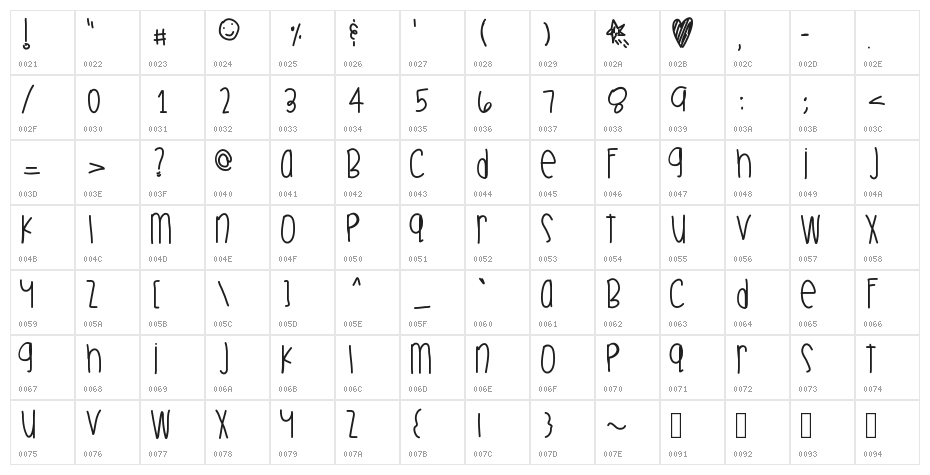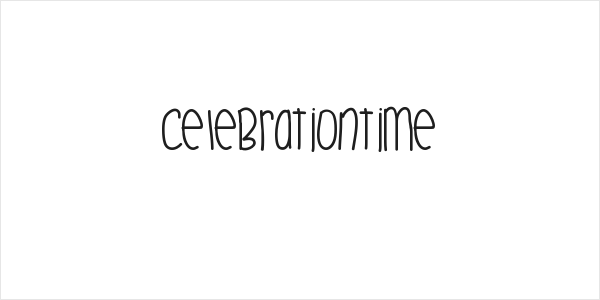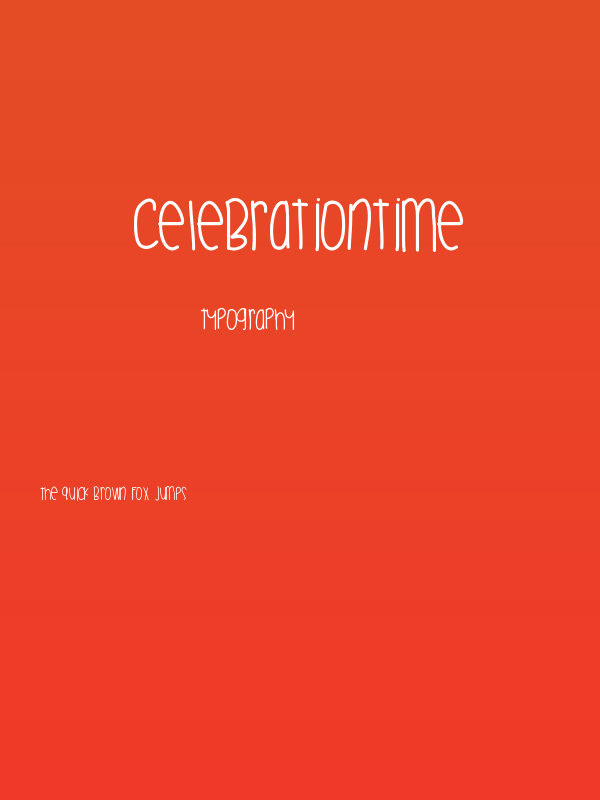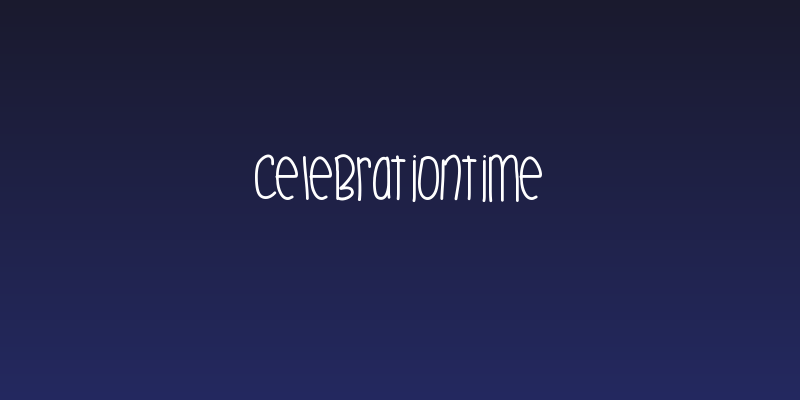
CelebrationTime Font
CelebrationTime Description
This playful and whimsical font features a hand-drawn style with a casual and informal appearance. The characters are tall and narrow, with a slightly uneven baseline that adds to its charm. The strokes are consistent in width, giving it a uniform look despite its quirky nature. The font includes both uppercase and lowercase letters, numbers, and a variety of special characters. Its friendly and approachable design makes it ideal for projects that require a personal touch.
| Proposed Projects | Ideal for children's books, greeting cards, playful branding, and casual invitations. |